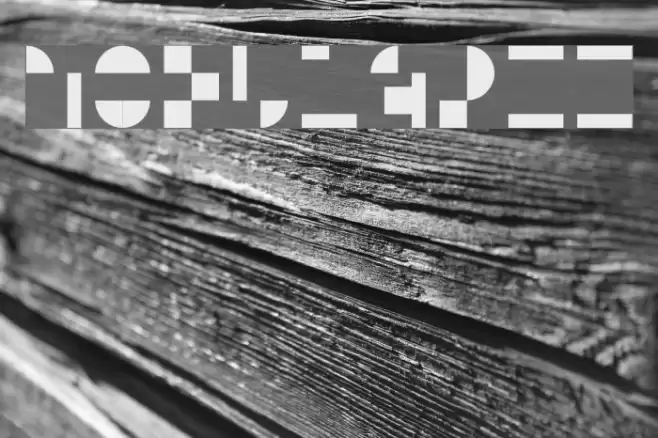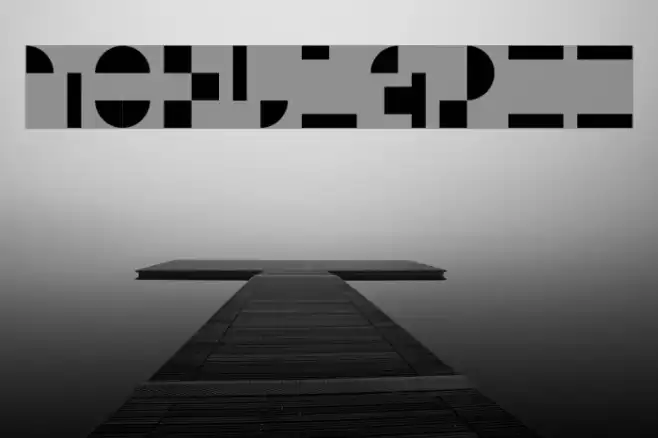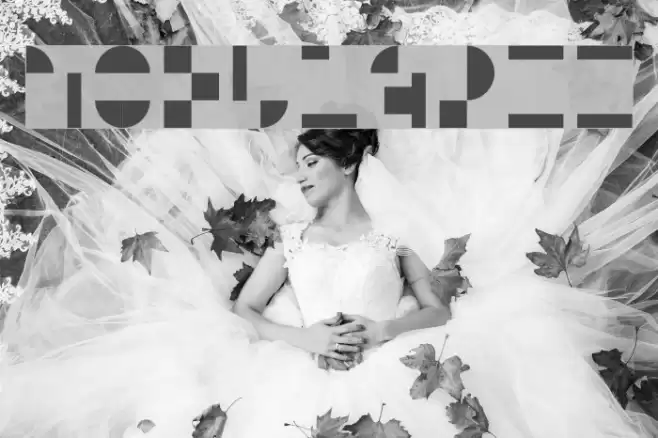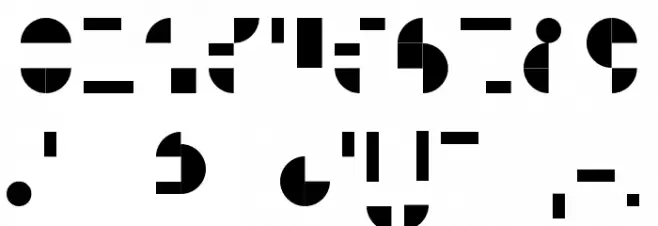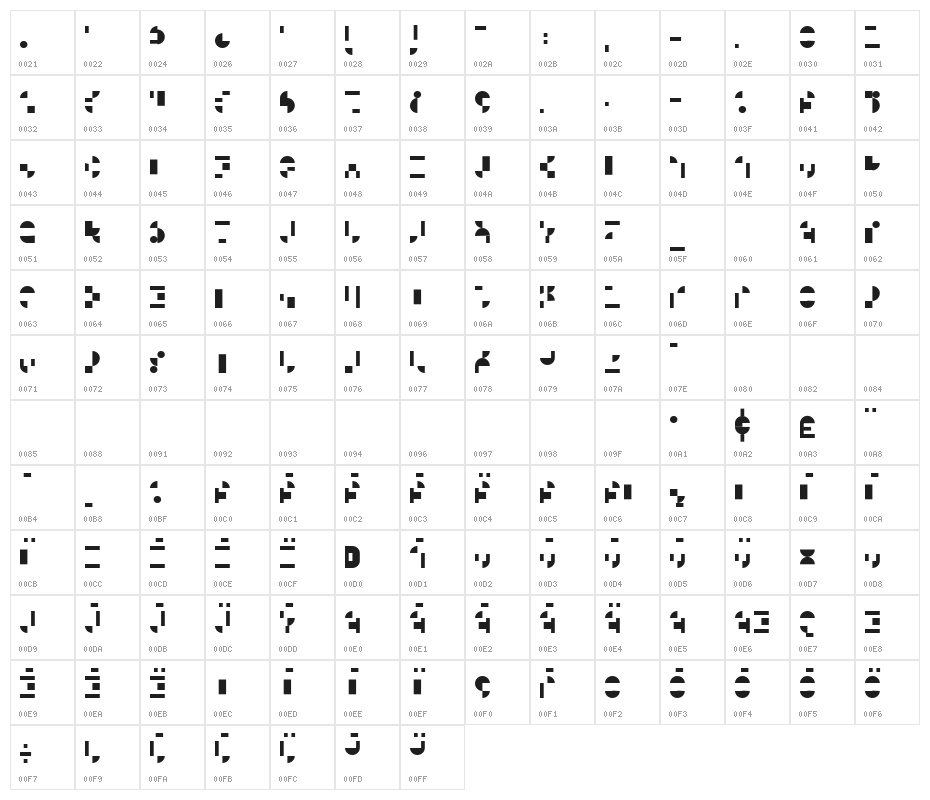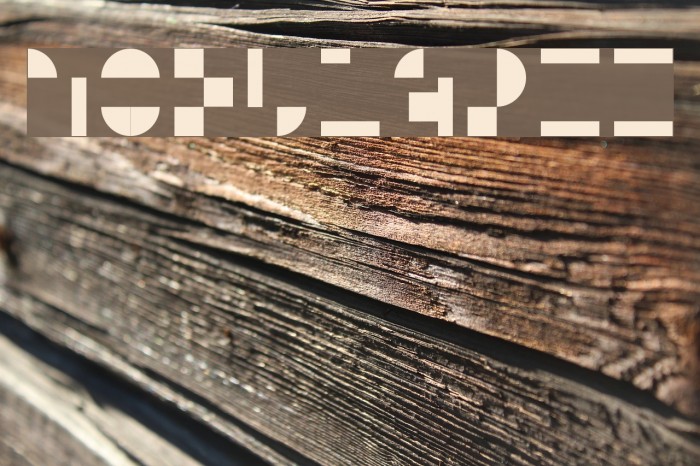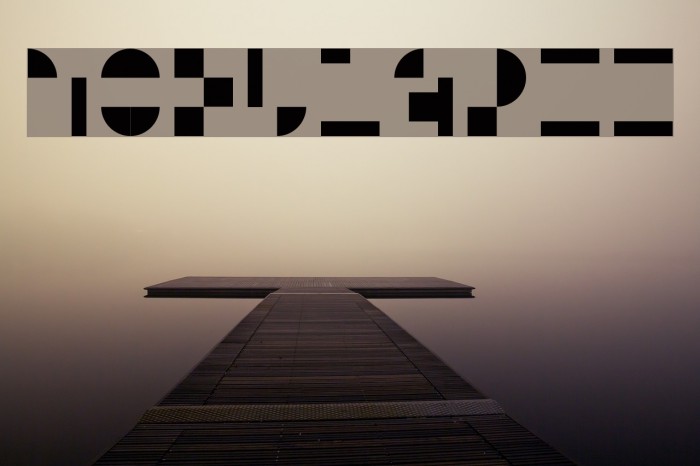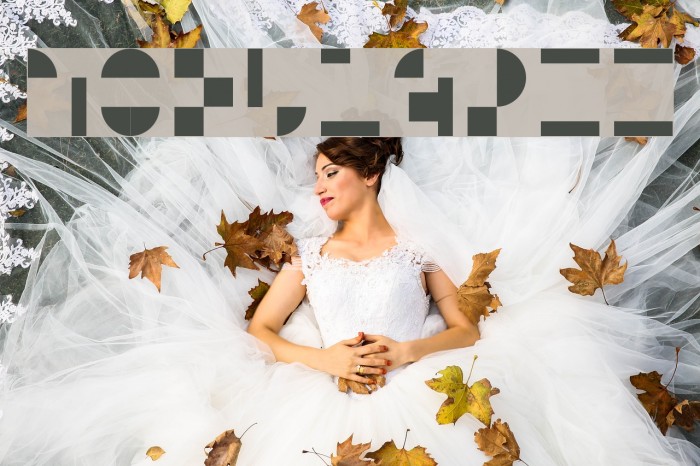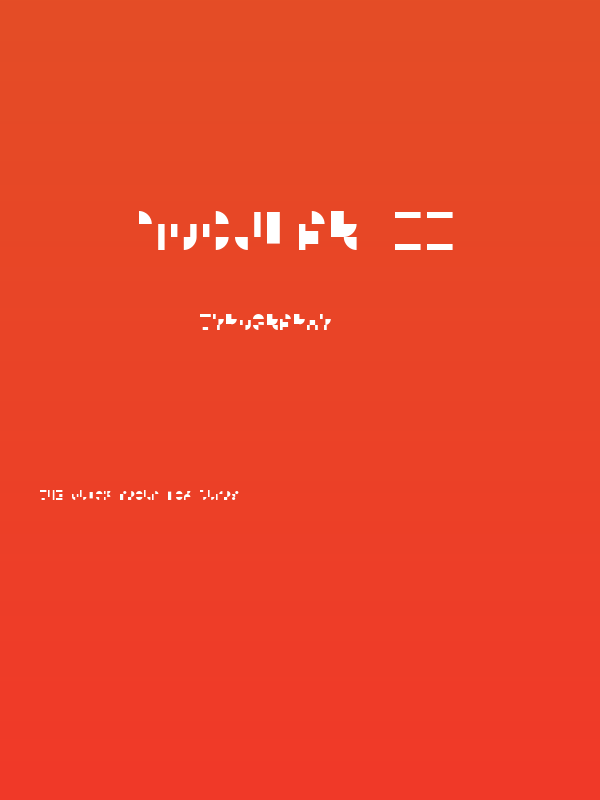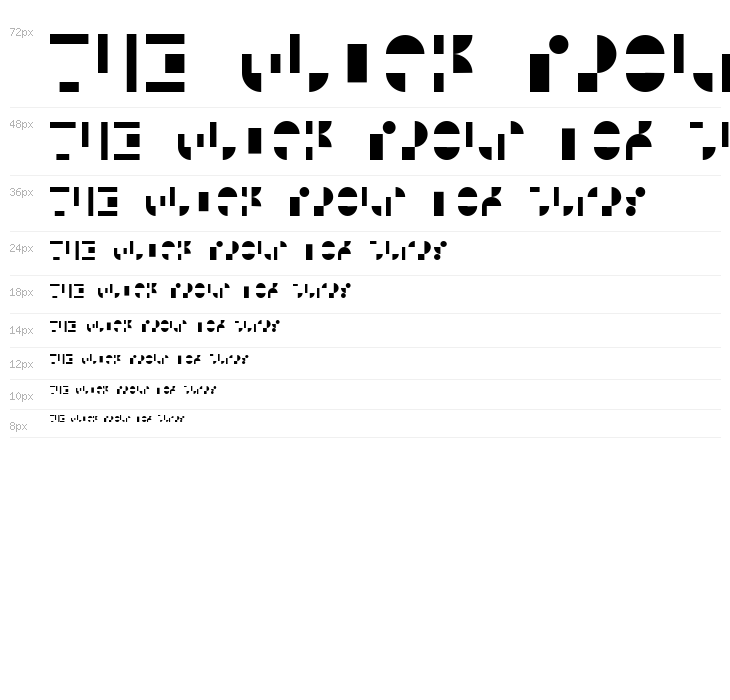
Modular II Font
Modular II Description
This font features a highly geometric and modular design, characterized by its use of basic shapes such as circles, squares, and lines to form each character. The style is distinctly modern and abstract, with a focus on symmetry and balance. Each letter is constructed from a combination of these shapes, creating a unique and futuristic appearance. The font lacks traditional serifs and instead relies on its bold, block-like structure to convey a sense of strength and stability. The spacing between characters is consistent, providing a clean and organized look. This design is ideal for projects that require a contemporary and innovative aesthetic.
A geometric, modular font with a modern and abstract style from Uncategorized fonts.
- Proposed Projects: Ideal for tech branding, modern art installations, futuristic posters, and digital interfaces.